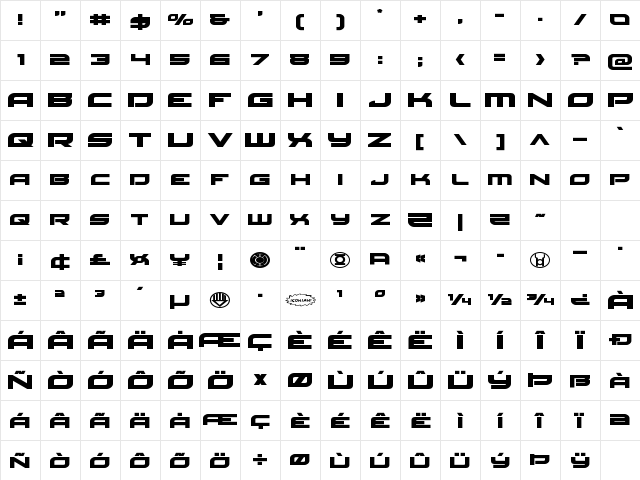
Complete Red Rocket Expanded glyph index. Displaying only characters natively supported by Red Rocket Expanded font.
Red Rocket is a composed and adaptable typeface that performs quietly and consistently across a wide range of design contexts.